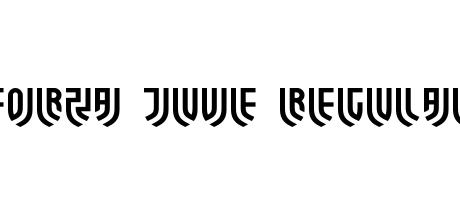
Forza Juve
By Kassymkulov Design
Forza Juve Regular is a bold, geometric sans-serif typeface. Its distinct feature is the unique, subtly curved serifs that give each letter a powerful, almost shield-like appearance. The even weight and consistent spacing contribute to its strong, unified look, suitable for impactful headings or logos. It feels modern yet classic, commanding attention without being overly aggressive.